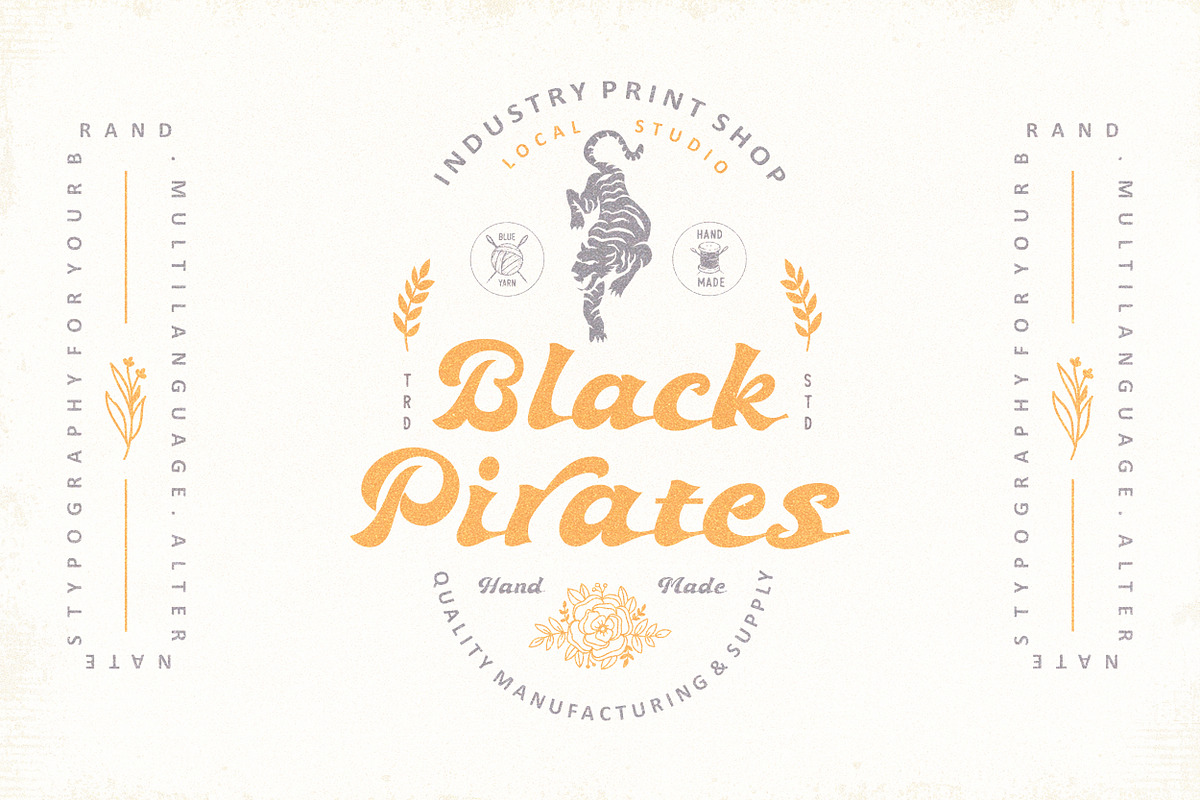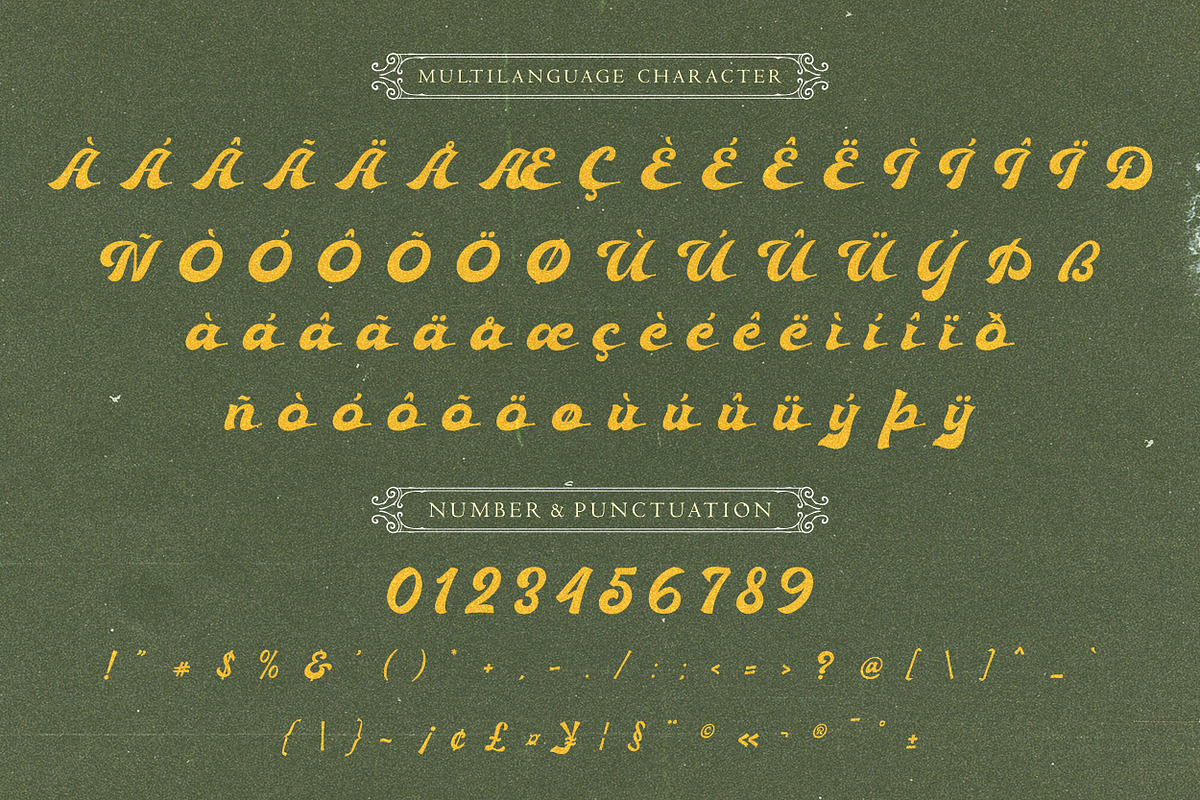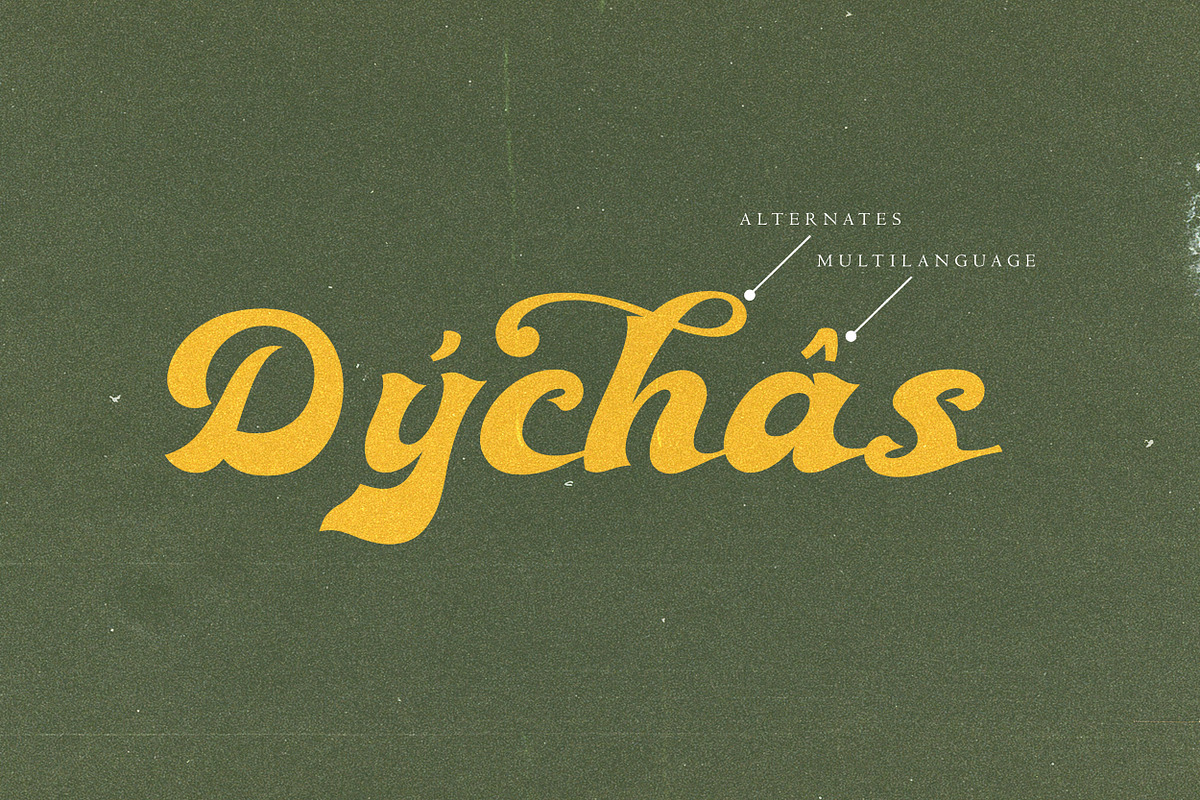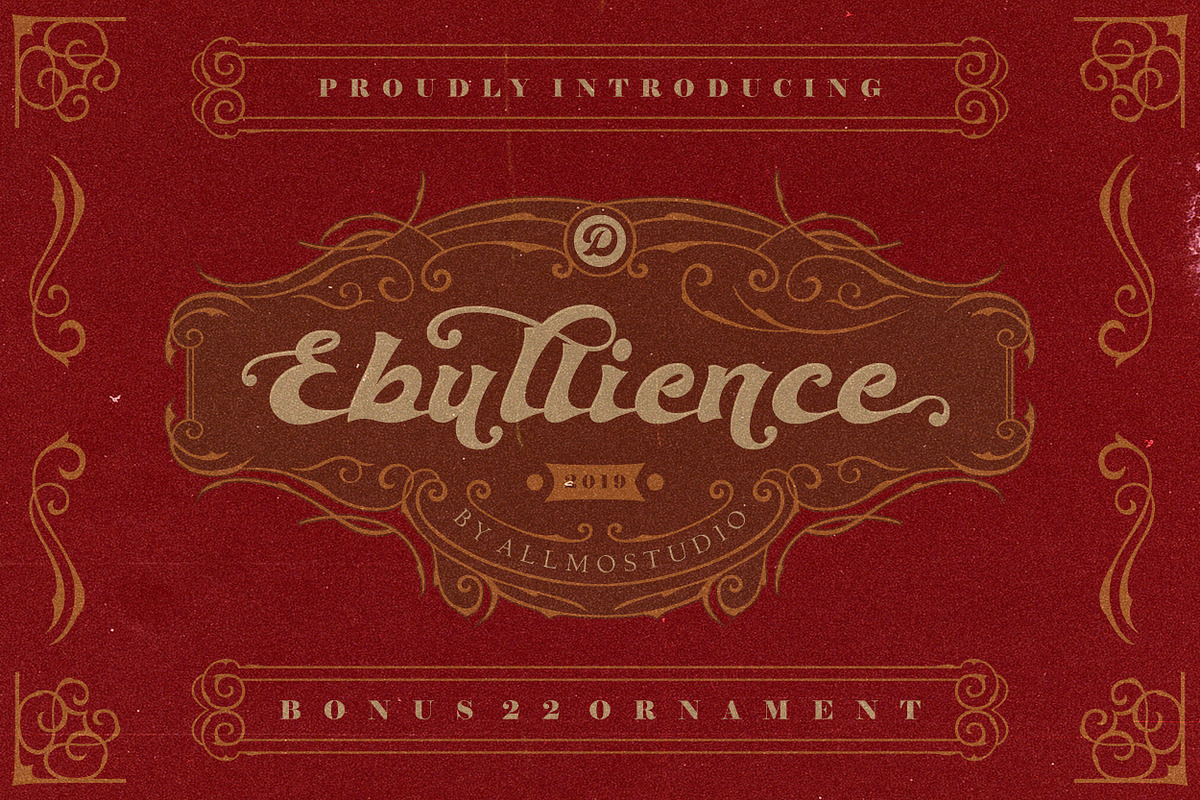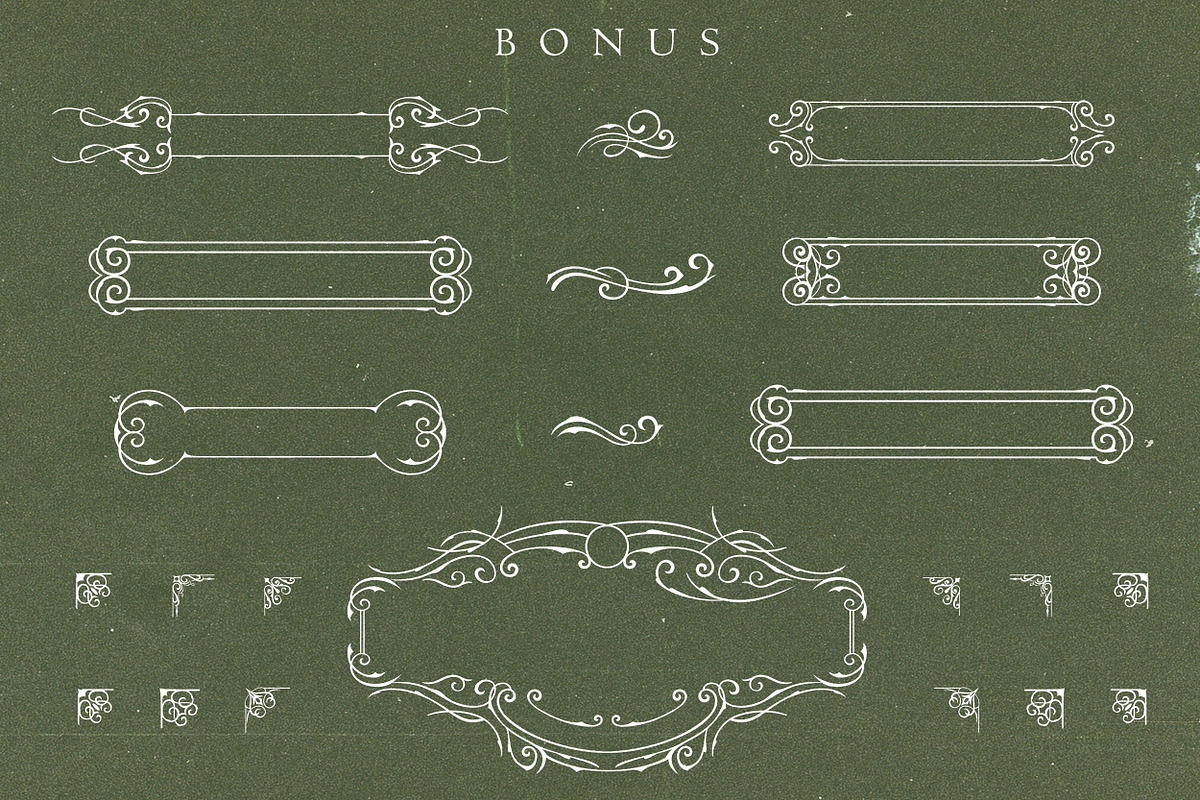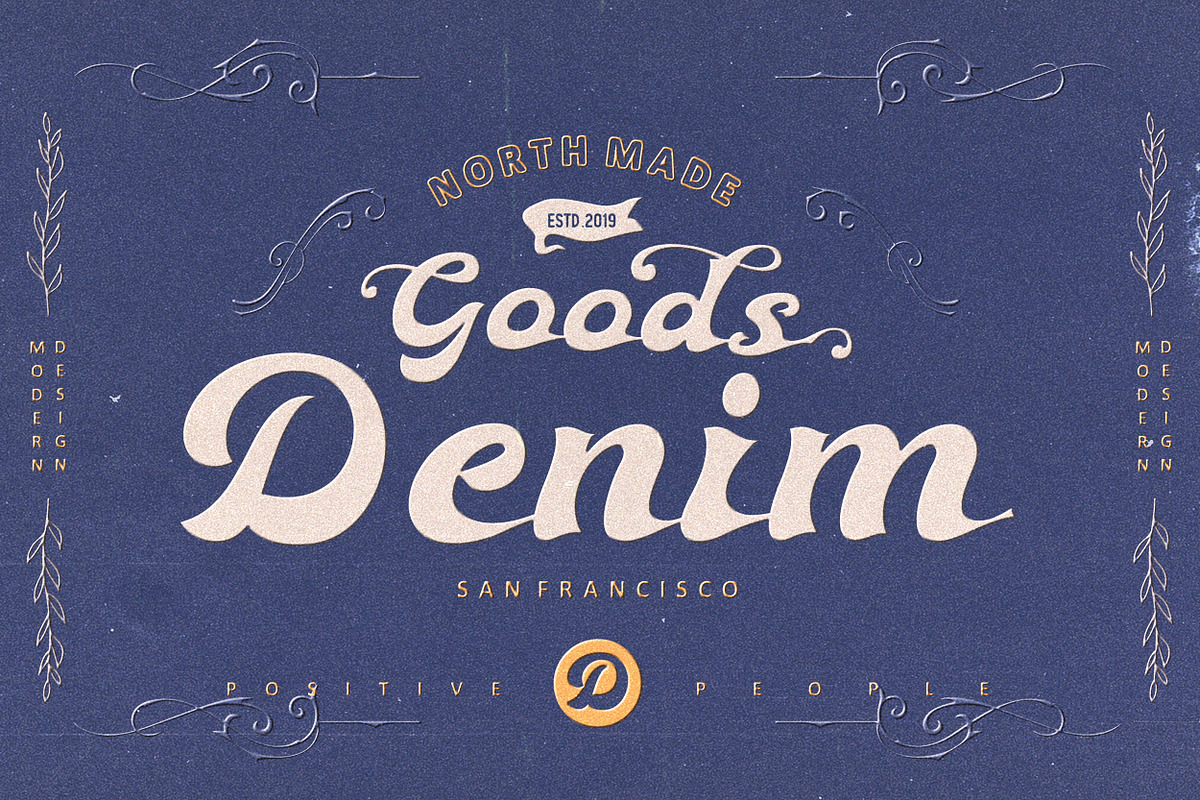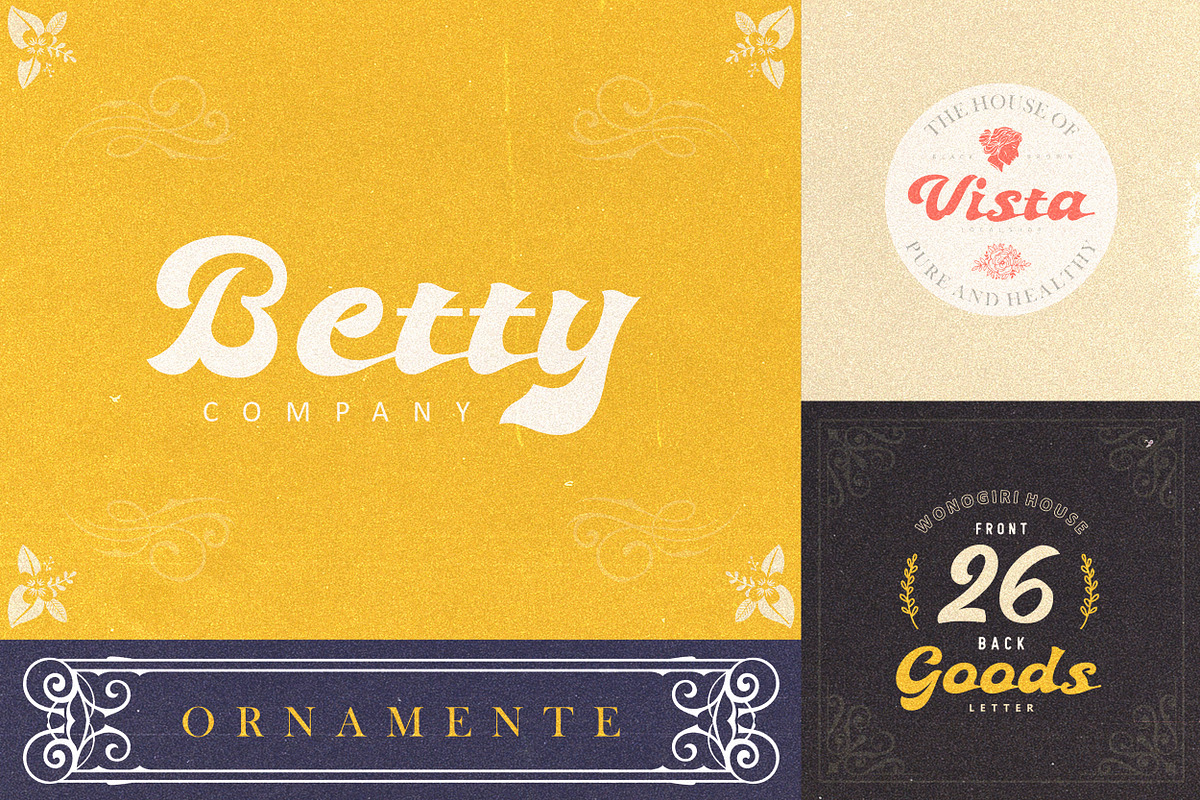
Ebullience font
Ebullience font comes with a retro, modern and vintage touch in it. Inspired by dinamic culture, sign and badges design. Pirates Face font comes with uppercase, lowercase, numerals, punctuations and so many variations on each characters include opentype alternates. This font is great for your creative project such as logos, posters. invitations cards, packaging, badges, logotype, apparel design and Label. But don't let we restrain your imagination of course. Work well on both vintage and modern design. You can see our design implementation on preview images to check the result sample. Pirates Face font looks Perfect for use in anything from Branding, Web, Packaging, Etc.
Ebullience font by Allmostudio fits naturally into Branding, posters, packaging, typography.